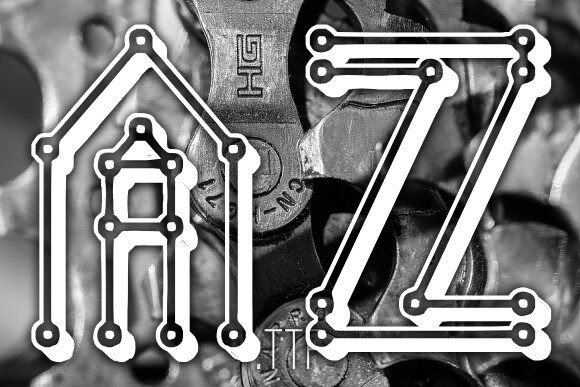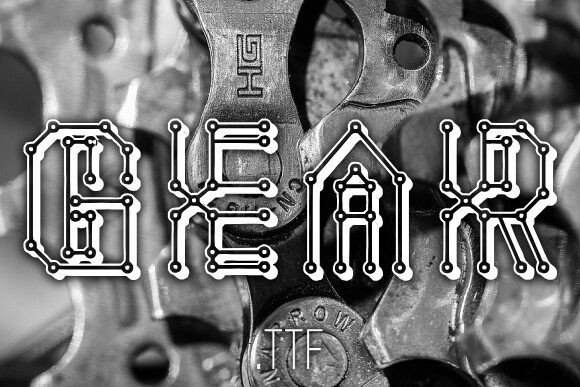
Breathe New Life into Your Designs with Bicycle Repairs Font
There’s nothing quite like the thrill of creating something from scratch. The blank page, the blank canvas – it’s a blank slate just waiting for your imagination to run wild. And then, it happens. The idea strikes, the design takes shape, and you’re off and running. But, as any designer will tell you, the journey isn’t always smooth sailing. Sometimes, the perfect finishing touch is all it takes to elevate your design from good to great.
That’s where the Bicycle Repairs Font comes in – a stunning decor font that adds a touch of personality to any design. Whether you’re creating posters, flyers, or even t-shirts, this font is sure to make a statement. And, as a designer, you know how valuable it is to have the right tools at your disposal. The Bicycle Repairs Font is a must-have for any design arsenal, offering a unique and eye-catching way to add visual interest to your work.
Bicycle Repairs Font Key Features
- Font Family: Bicycle Repairs Font is a unique sans-serif font designed specifically for technical and instructional content, making it ideal for bicycle repair guides, manuals, and tutorials.
- Character Set: The font includes a comprehensive character set, including Latin, Cyrillic, and Greek alphabets, as well as a range of technical symbols and icons.
- Unique Characteristics: The font features a distinctive, modern design with clear and readable typography, making it perfect for technical content that requires precision and accuracy.
Bicycle Repairs Font Review
I recently had the chance to work with the Bicycle Repairs Font, and I must say it’s a unique addition to any design project.
- ✨ Customization options: The font offers a range of customization options, including color and size adjustments, which can help designers tailor it to their specific needs.
- ✨ Readability: Despite its quirky design, the font is surprisingly readable, making it suitable for body text and other areas where legibility is key.
- ✨ Versatility: The font’s eclectic style makes it a great choice for projects that require a touch of whimsy, such as branding or packaging design.
- ⚠️ Limited font size: The font’s design can become distorted when used in smaller font sizes, which may limit its usability in certain contexts.
- ⚠️ Limited language support: The font’s design may not be suitable for languages that require complex scripts or characters, which can be a limitation for designers working with international clients.
Overall, the Bicycle Repairs Font is a solid choice for designers looking to add some personality to their projects. While it has its limitations, its customization options and readability make it a versatile and effective font.
The Bicycle Repairs Font is ideal for:
- Bike-themed designs
- Cycling-related presentations and reports
- Bike repair and maintenance guides
- Cycling merchandise such as t-shirts and stickers